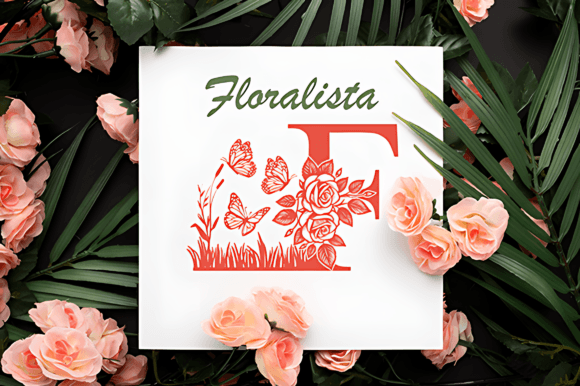
Butterfly Garden Monogram Font: A Whimsical Decorative Font for Your Designs
Are you looking for a font that can add a touch of elegance and sophistication to your designs? Look no further than the Butterfly Garden Monogram Font, a ravishing decorative font that features incredibly detailed ornaments. This beautiful font is sure to fall in love with its unique style, and you’ll be eager to use it to create spectacular designs that will leave a lasting impression.
What is Butterfly Garden Monogram Font?
Butterfly Garden Monogram Font is a decorative font that is designed to add a touch of whimsy and elegance to your designs. The font features intricate ornaments that are reminiscent of a butterfly garden, with delicate flowers, leaves, and butterflies woven together to create a beautiful and unique design. The font is perfect for use in a variety of design projects, including wedding invitations, greeting cards, and other paper crafts.
Key Features of Butterfly Garden Monogram Font
The Butterfly Garden Monogram Font has several key features that make it a standout decorative font. Some of its key features include:
- Incredibly detailed ornaments: The font features intricate ornaments that are designed to add a touch of elegance and sophistication to your designs.
- Unique style: The font has a unique style that is sure to set it apart from other decorative fonts.
- Whimsical design: The font features a whimsical design that is perfect for use in a variety of design projects, including wedding invitations, greeting cards, and other paper crafts.
- Elegant and sophisticated: The font is designed to add a touch of elegance and sophistication to your designs, making it perfect for use in high-end design projects.
Uses for Butterfly Garden Monogram Font
The Butterfly Garden Monogram Font is a versatile font that can be used in a variety of design projects. Some of the uses for this font include:
- Wedding invitations: The font is perfect for use in wedding invitations, where it can add a touch of elegance and sophistication to the design.
- Greeting cards: The font is also great for use in greeting cards, where it can add a touch of whimsy and personality to the design.
- Paper crafts: The font is perfect for use in paper crafts, such as scrapbooking and card making.
- Digital designs: The font can also be used in digital designs, such as social media graphics and blog posts.
Tips for Using Butterfly Garden Monogram Font
Here are a few tips for using the Butterfly Garden Monogram Font in your designs:
- Use it sparingly: The font is designed to add a touch of elegance and sophistication to your designs, so use it sparingly to avoid overwhelming the design.
- Pair it with a simple font: The font is best paired with a simple font, such as a sans-serif font, to create a beautiful contrast.
- Experiment with different colors: The font looks great in a variety of colors, so experiment with different colors to find the one that works best for your design.
Benefits of Using Butterfly Garden Monogram Font
There are several benefits to using the Butterfly Garden Monogram Font in your designs. Some of the benefits include:
- Adds elegance and sophistication: The font adds a touch of elegance and sophistication to your designs, making it perfect for use in high-end design projects.
- Unique and eye-catching: The font is unique and eye-catching, making it sure to grab the attention of your audience.
- Versatile: The font is versatile and can be used in a variety of design projects.
The Butterfly Garden Monogram Font is a beautiful and unique decorative font that is perfect for use in a variety of design projects. With its incredibly detailed ornaments and whimsical design, this font is sure to add a touch of elegance and sophistication to your designs. Whether you’re looking to create wedding invitations, greeting cards, or other paper crafts, this font is sure to be a great choice. So why wait? Download the Butterfly Garden Monogram Font today and start creating spectacular designs!